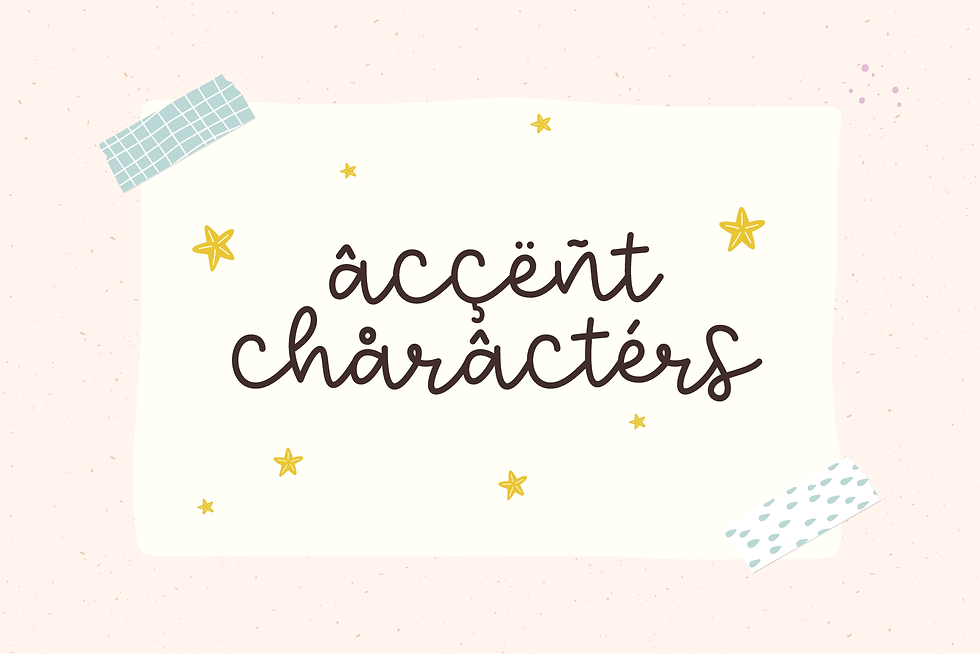
Summer Memories
Summer Morning is a fun handwritten font.
This font is perfect for your craft projects, home decor, quotes, stickers, branding and much more!
Enjoy with this font creating lots of designs!
⋒ Most accent characters included.
✷ Use the 2 symbols included to make awesome compositions.
• Period centered symbol · – Starfish
• Bullet symbol  - Heart